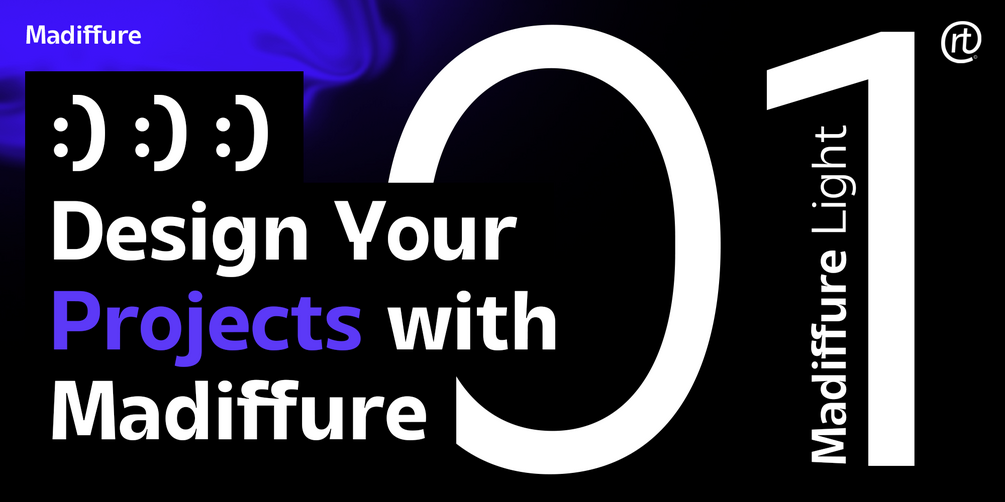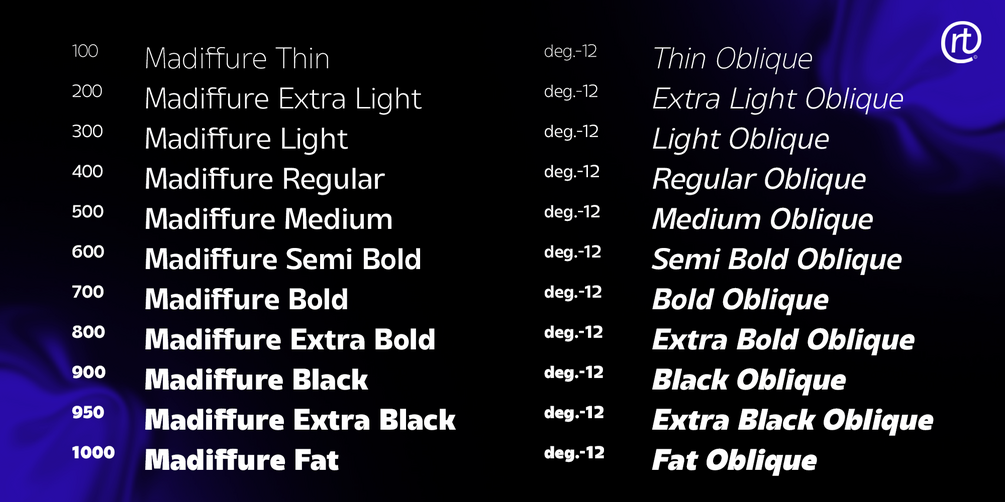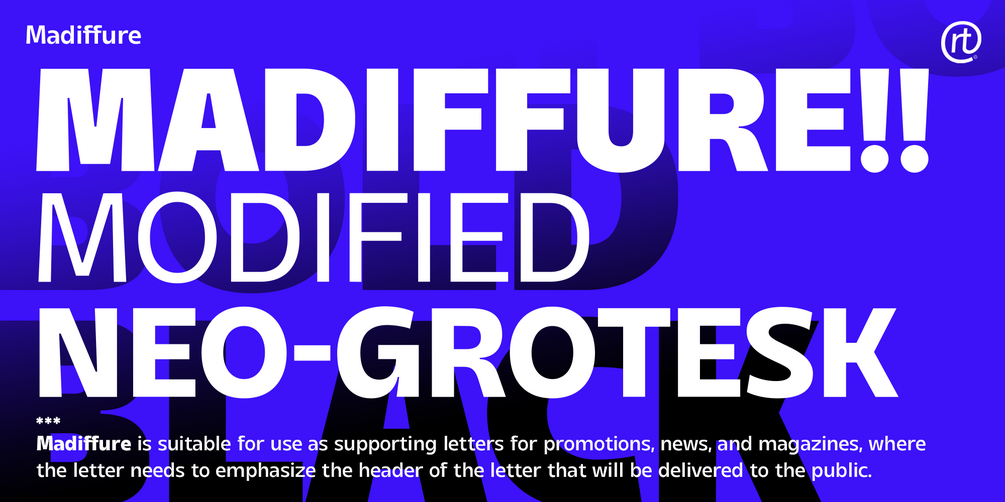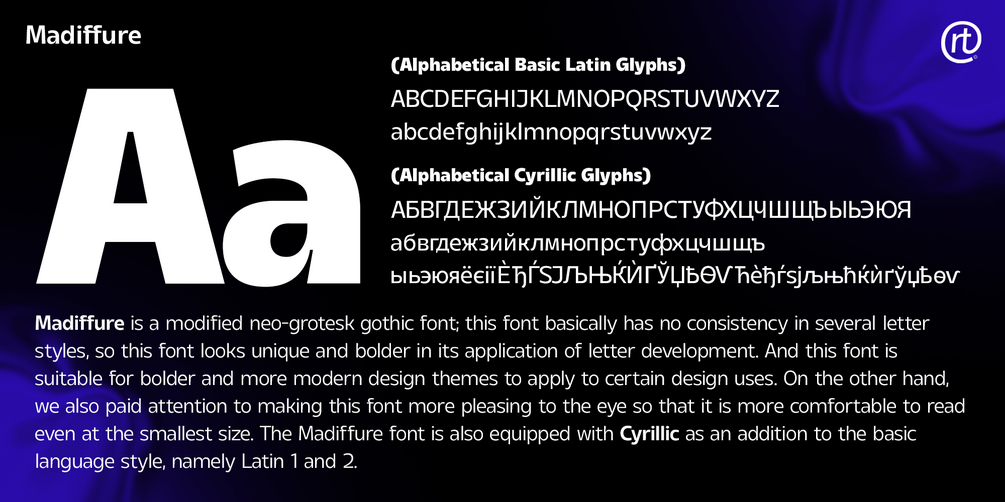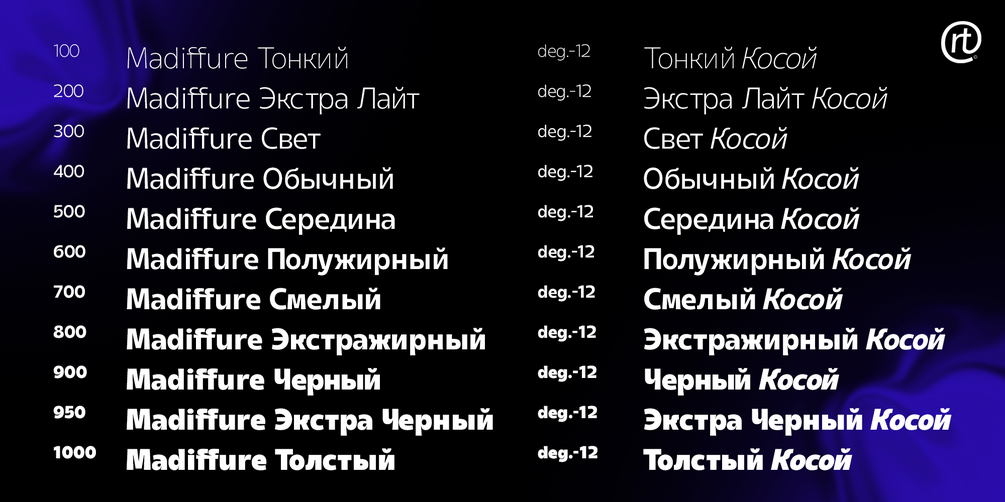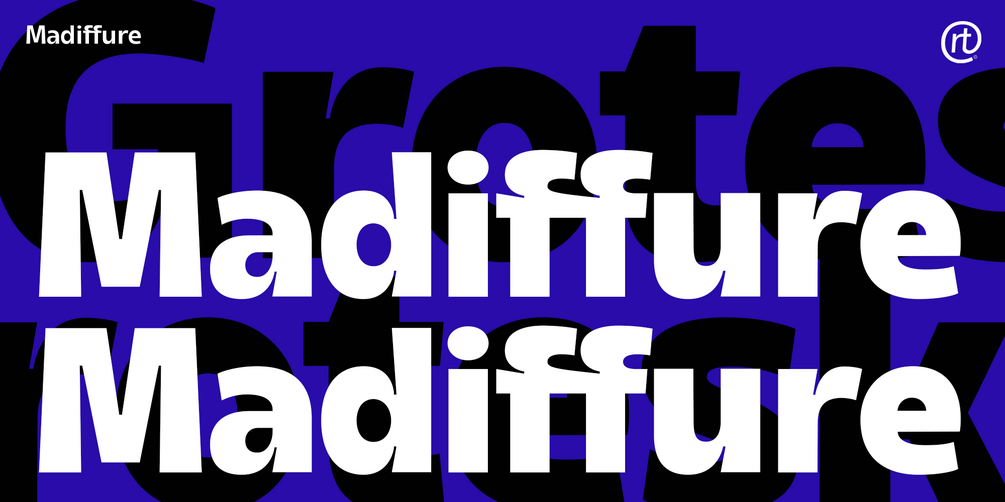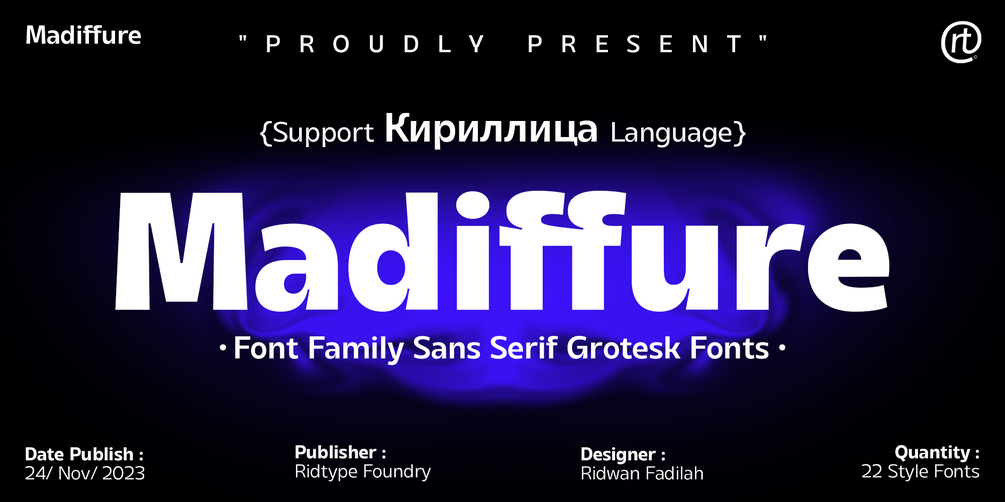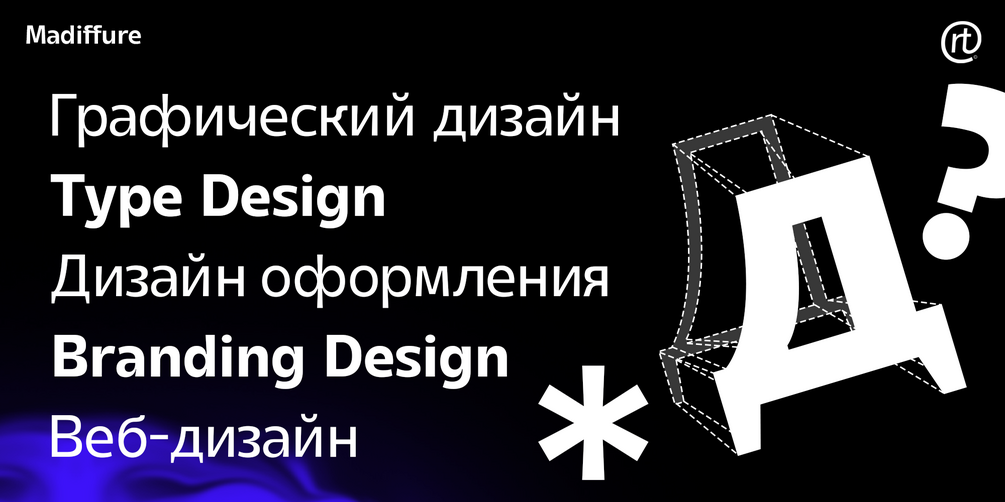
Madiffure Font Family
Madiffure is a modified neo-grotesk gothic font; this font basically has no consistency in several letter styles, so this font looks unique and bolder in its application of letter development. And this font is suitable for bolder and more modern design themes to apply to certain design uses.
On the other hand, we also paid attention to making this font more pleasing to the eye so that it is more comfortable to read even at the smallest size. The Madiffure font is also equipped with Cyrillic as an addition to the basic language style, namely Latin 1 and 2.
- Details Font : Sans Serif Grotesk